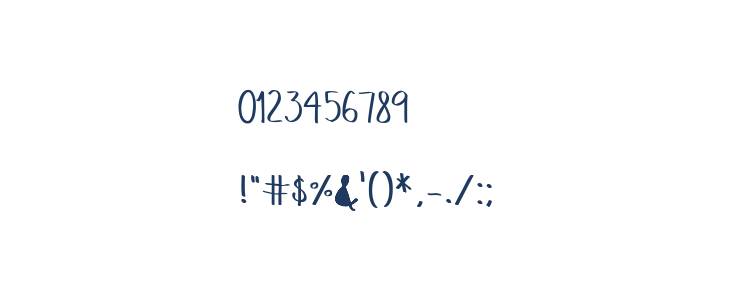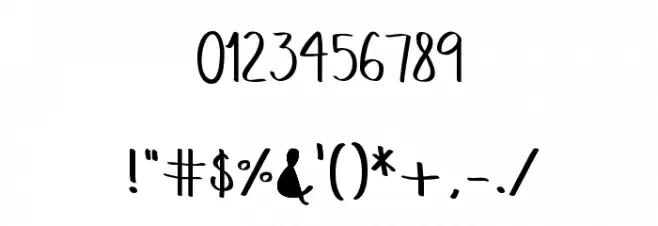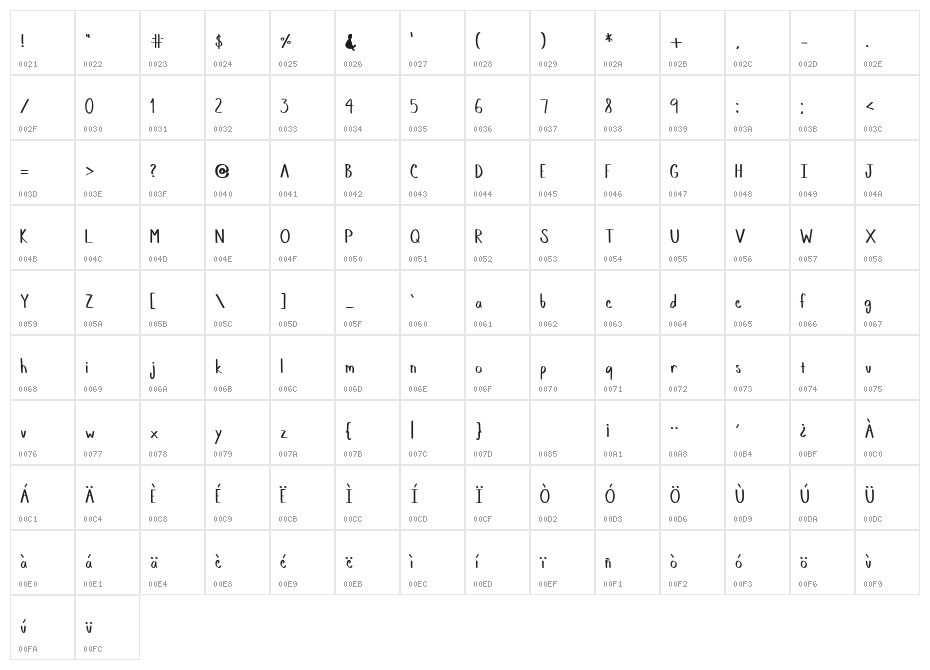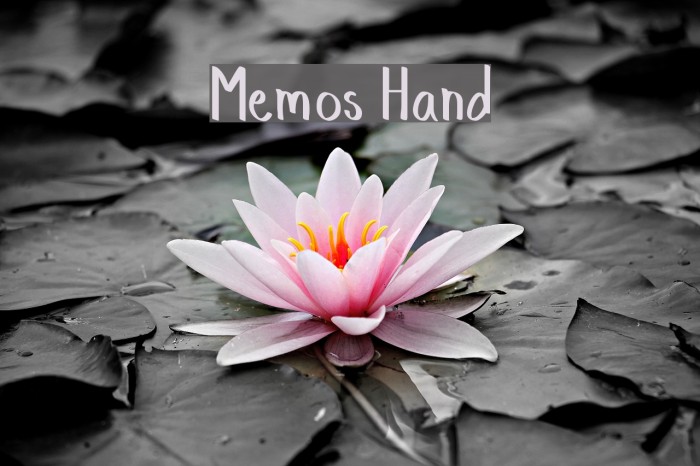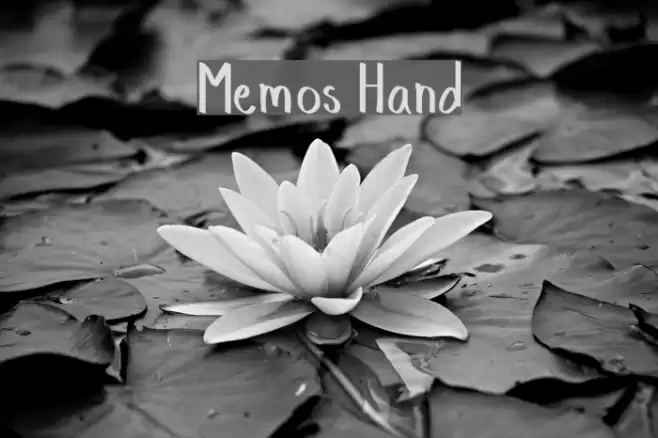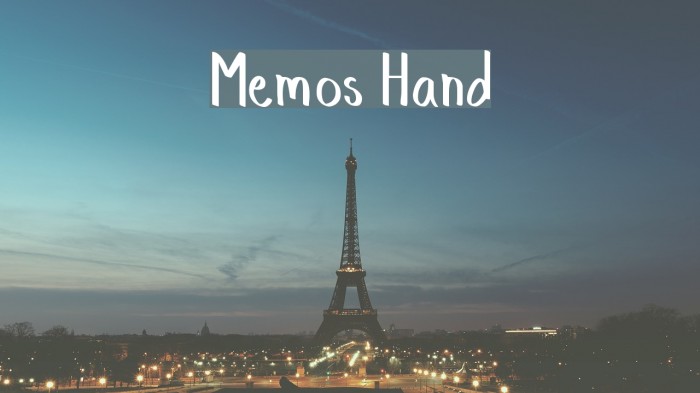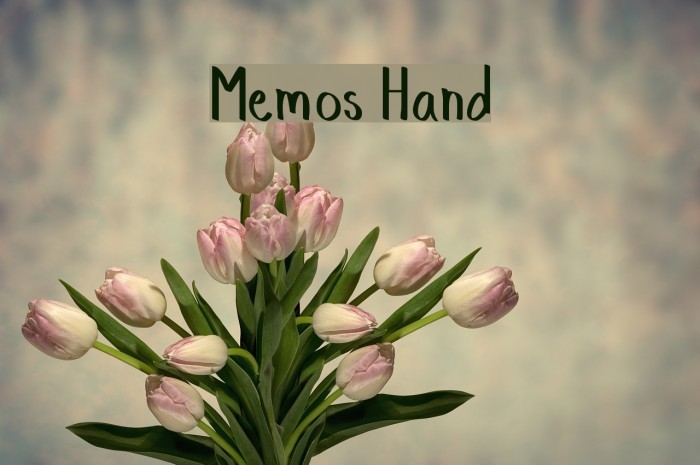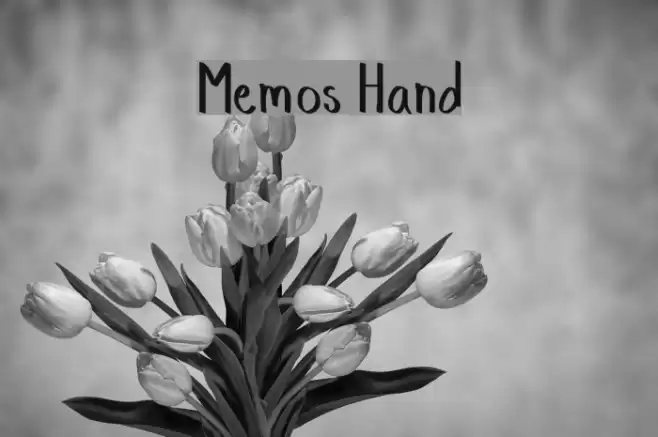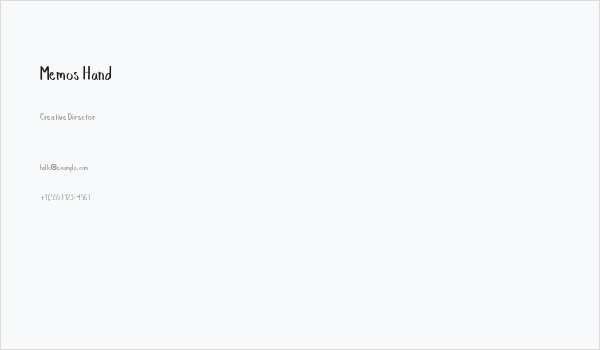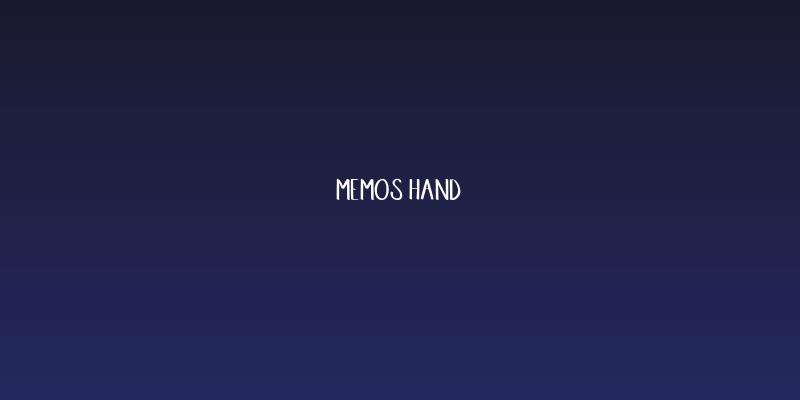
Memos Hand Font
Memos Hand Description
This font features a playful and casual handwritten style, characterized by its slightly irregular strokes and friendly appearance. The letters have a natural flow, with varying thickness that adds to its informal charm. The uppercase characters are bold and slightly condensed, while the lowercase letters maintain a consistent, rounded form. The numerals and special characters follow the same whimsical design, making the font versatile for creative projects. Its unique personality is perfect for adding a personal touch to any design.
| Proposed Projects | Ideal for greeting cards, invitations, children's books, and playful branding. |